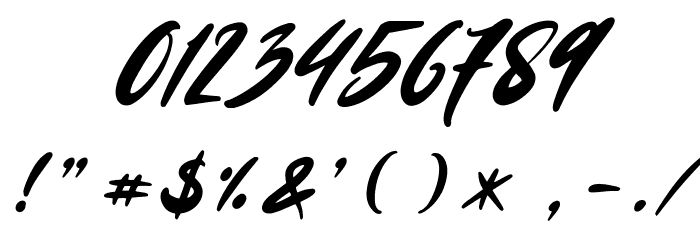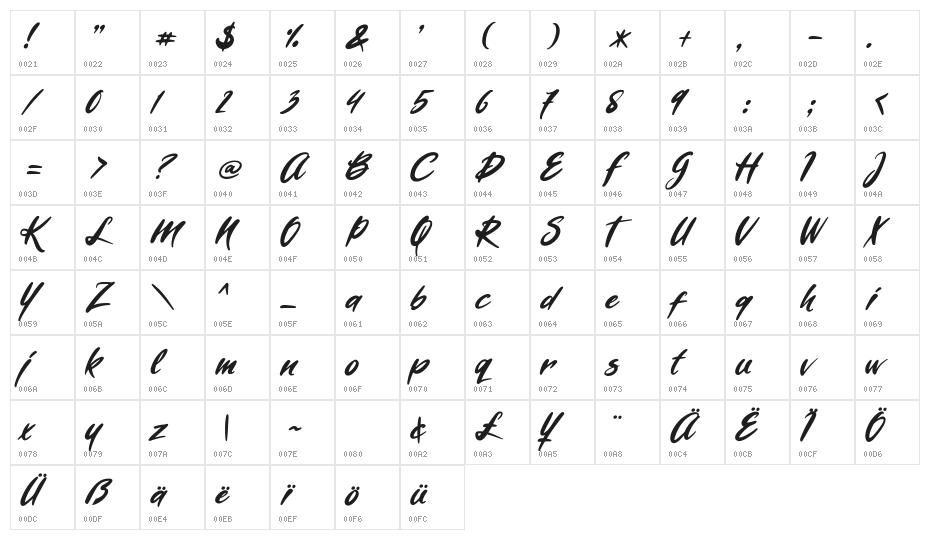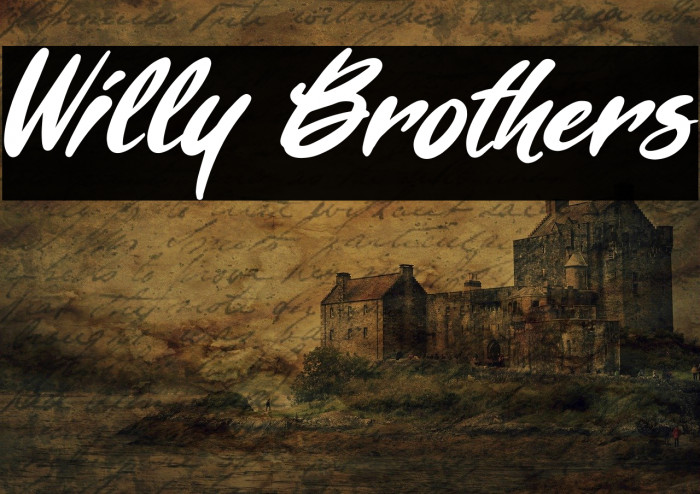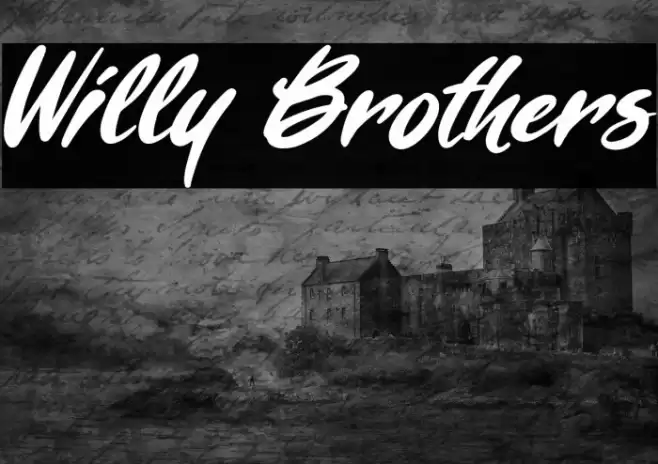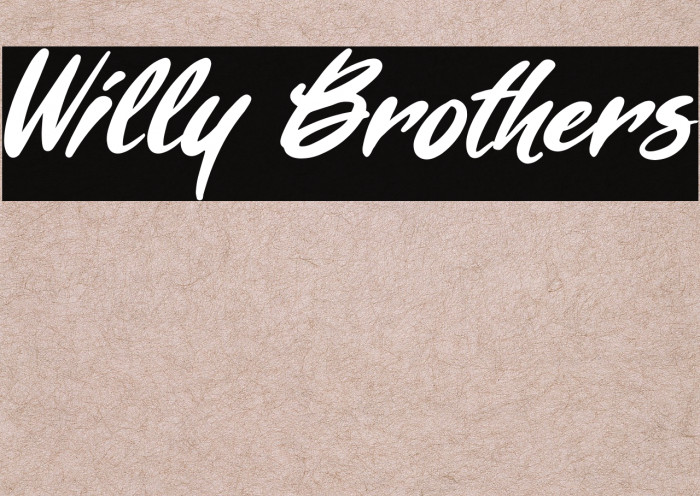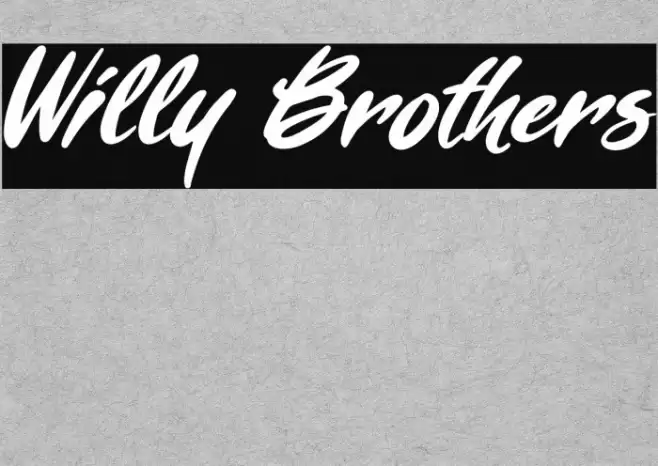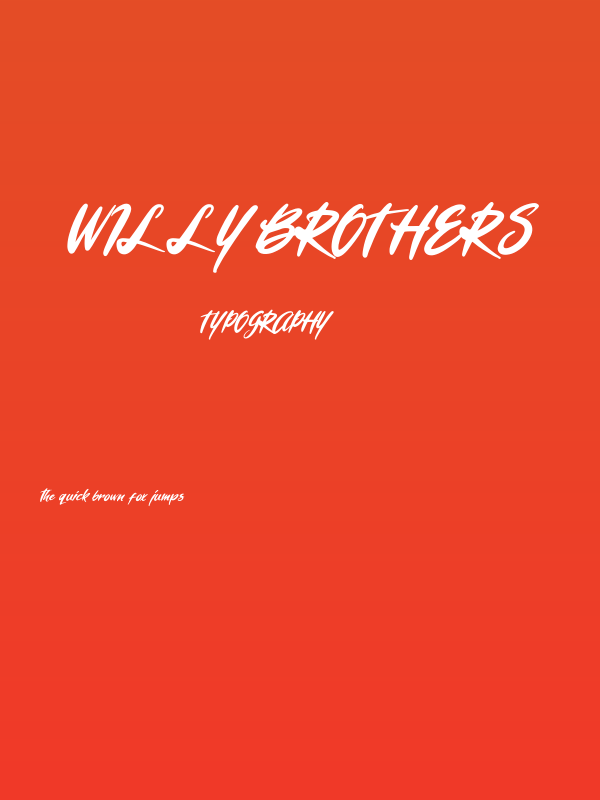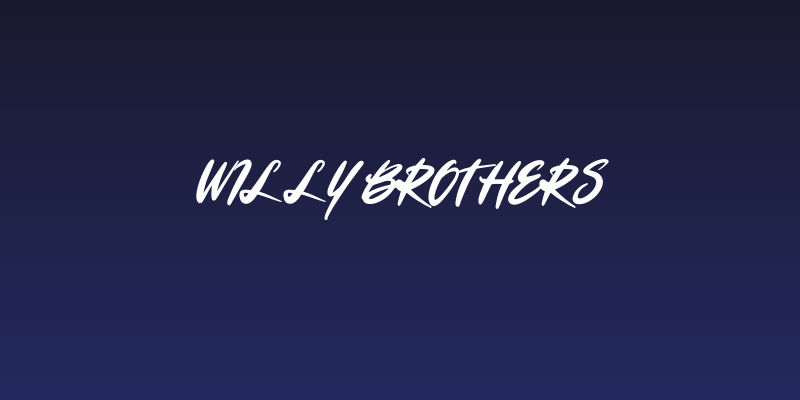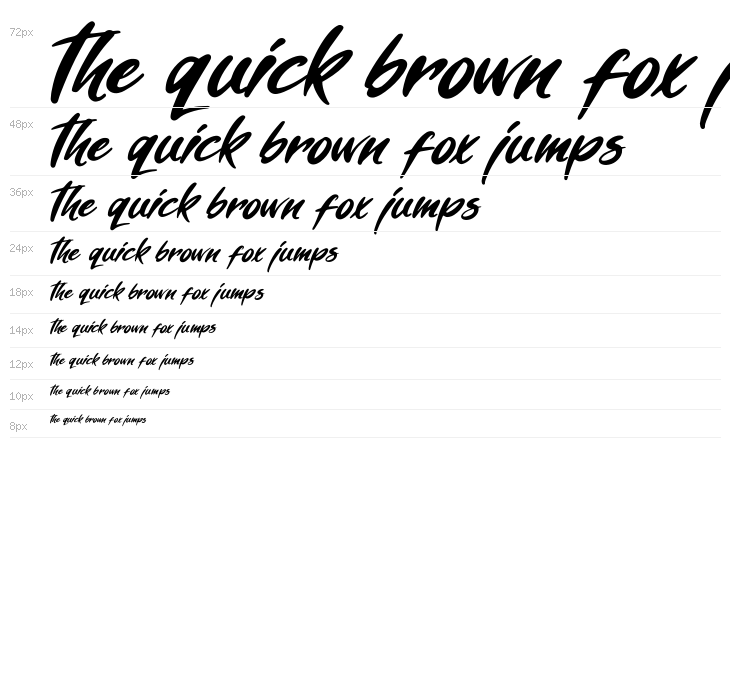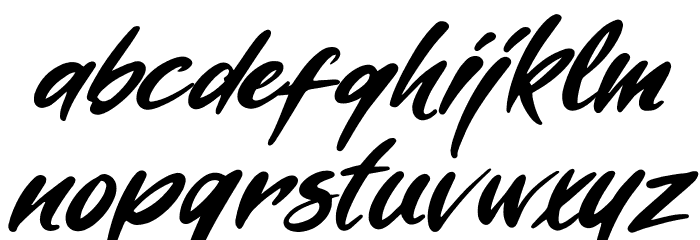
Willy Brothers Font
Willy Brothers Description
This font features a bold, expressive script style with a dynamic and fluid appearance. The characters are connected, giving it a handwritten feel, while maintaining a modern edge. The strokes are thick and consistent, providing a strong visual impact. The uppercase letters are slightly larger and more pronounced, while the lowercase letters maintain a smooth flow. Numbers and special characters are designed to match the overall aesthetic, ensuring uniformity across all elements. This font is ideal for making a statement, with its energetic and lively character.
| Use Case | Logos, Headlines, Branding |
| Proposed Projects | Ideal for branding, logos, headlines, and creative projects that require a dynamic and personal touch. |